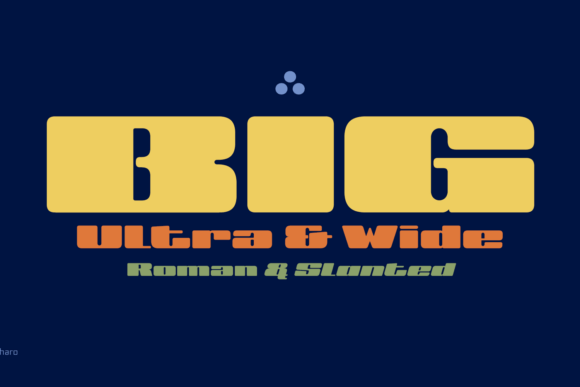
Introducing BIG Slant: The Big Ultra Wide Font that Redefines Modern Typography
In the world of typography, a font can make all the difference in how a message is conveyed. With the introduction of BIG Slant, a bold typeface with a commanding 16° slant, the boundaries of modern typography have been pushed to new limits. This ultra-wide, ultra-black font embodies speed, modernity, and a distinctive visual identity that demands attention.
The Power of BIG Slant: A Monumental Typeface
True to its name, BIG Slant is monumental, conveying more meaning in three letters than others can in an entire line. Its expansive proportions are meticulously crafted to dominate space with confidence, clarity, and style. Every letter strikes the perfect balance between bold impact and refined elegance, ensuring a design that captures attention without sacrificing functionality.
Design Philosophy: Amplifying Horizontal Presence
BIG Slant’s design philosophy revolves around amplifying its horizontal presence. The font’s ascenders and descenders are intentionally minimized, almost incidental, to create a strikingly cohesive and highly legible texture. This deliberate design choice allows BIG Slant to maintain a consistent, powerful rhythm across text, making it ideal for contemporary branding, editorial headlines, and projects demanding unmistakable visual authority.
Key Features: PUA-Encoded for Effortless Customization
BIG Slant font is also PUA-encoded, ensuring effortless access to all glyphs, swashes, and alternate characters. This feature allows designers to customize their creations with ease, adding a touch of personality to their work. With BIG Slant, designers can experiment with different styles, creating unique and captivating visual experiences.
Applications: Where BIG Slant Shines
BIG Slant’s versatility makes it suitable for a wide range of applications, including:
- Contemporary branding: BIG Slant’s bold and modern design makes it perfect for brands looking to make a statement.
- Editorial headlines: The font’s high legibility and impactful design make it ideal for editorial headlines, grabbing the reader’s attention and conveying the message with clarity.
- Projects demanding visual authority: BIG Slant’s commanding presence makes it suitable for projects that require a strong visual identity, such as posters, billboards, and advertisements.
The Benefits of BIG Slant: Why Choose this Ultra-Wide Font?
So, why choose BIG Slant over other fonts? Here are some benefits that make BIG Slant an attractive choice:
- Attention-grabbing design: BIG Slant’s bold and modern design ensures that your message gets noticed.
- High legibility: The font’s careful design ensures that text remains legible, even at large sizes.
- Customization options: PUA-encoding allows for effortless access to glyphs, swashes, and alternate characters, giving designers the freedom to experiment with different styles.
- Versatility: BIG Slant’s adaptability makes it suitable for a wide range of applications, from branding to editorial headlines.
In conclusion, BIG Slant is a game-changing typeface that redefines modern typography. Its ultra-wide, ultra-black design, combined with a commanding 16° slant, makes it a standout in the world of fonts. With its meticulous attention to detail, PUA-encoding, and versatility, BIG Slant is the perfect choice for designers looking to make a statement. Whether you’re working on a branding project, editorial headline, or any other design endeavor, BIG Slant is sure to deliver a striking and memorable visual experience.